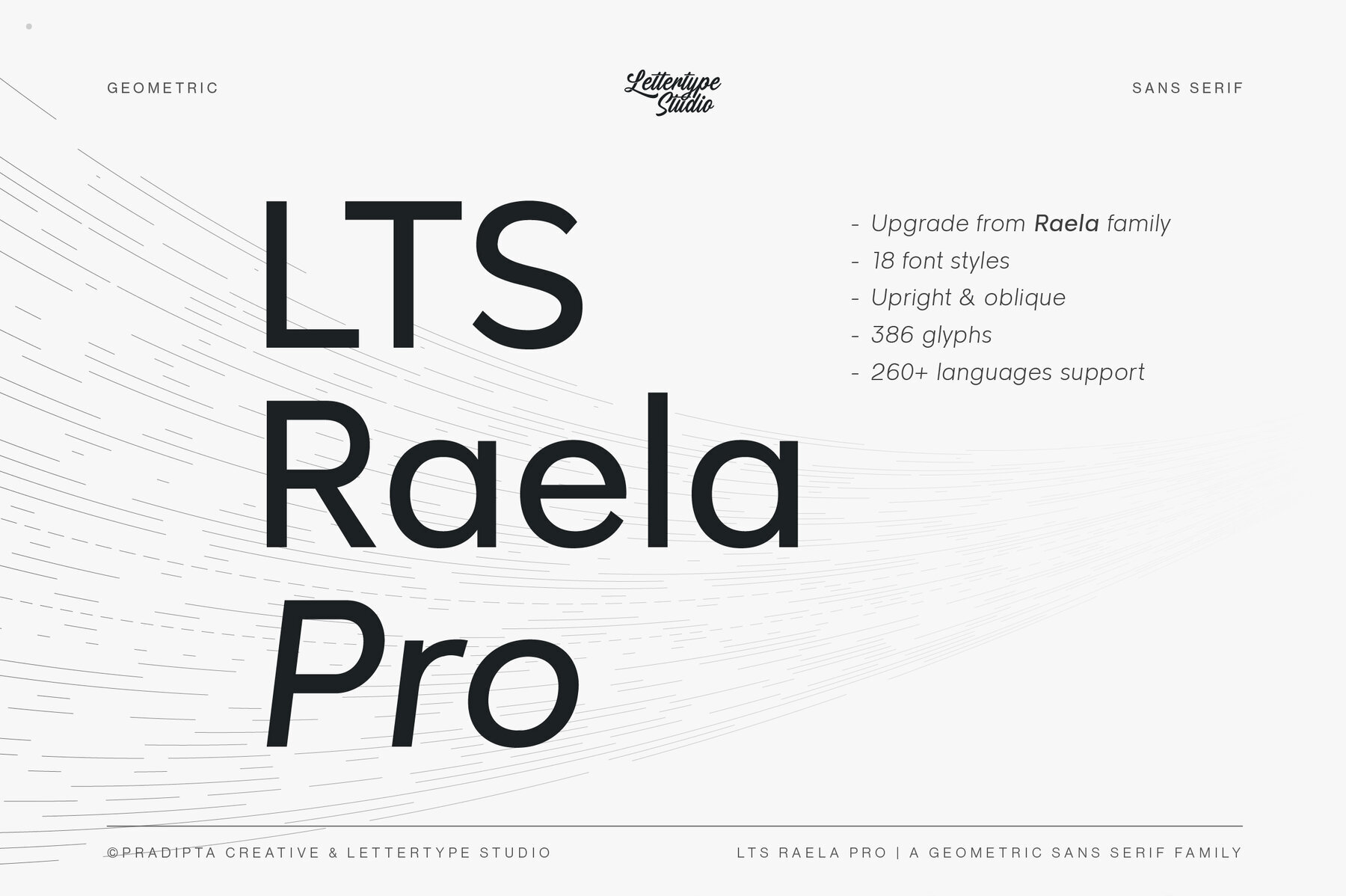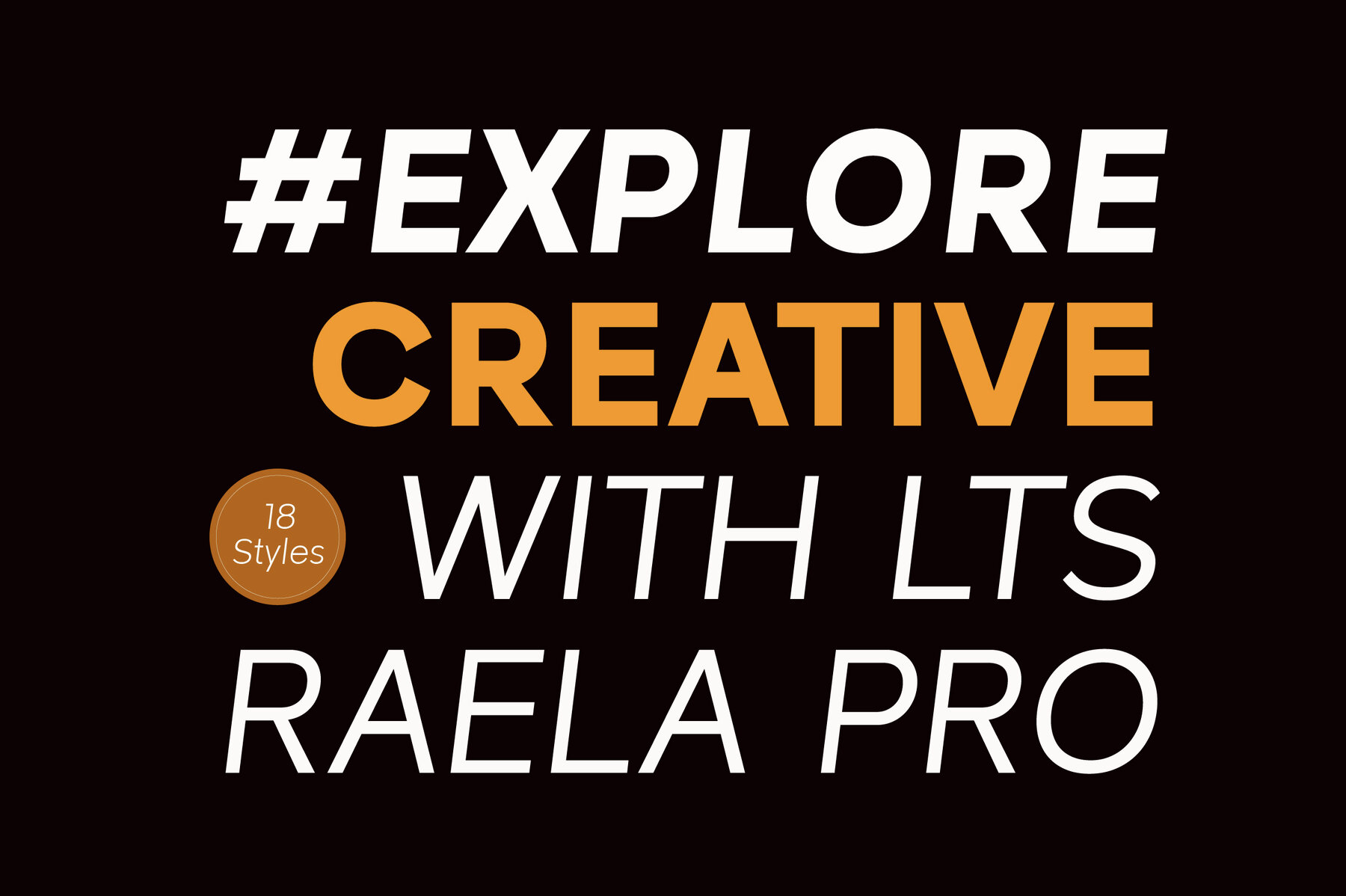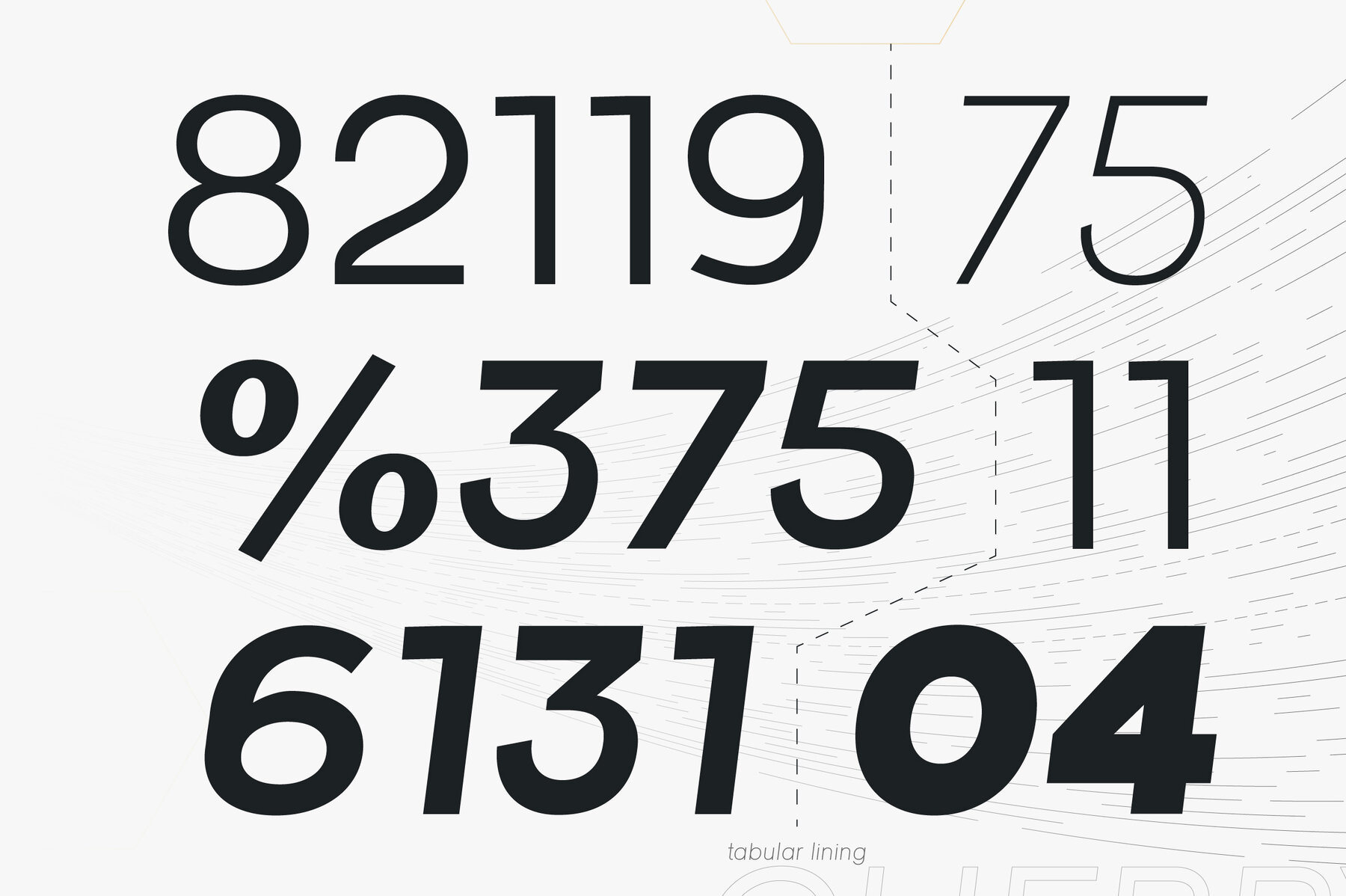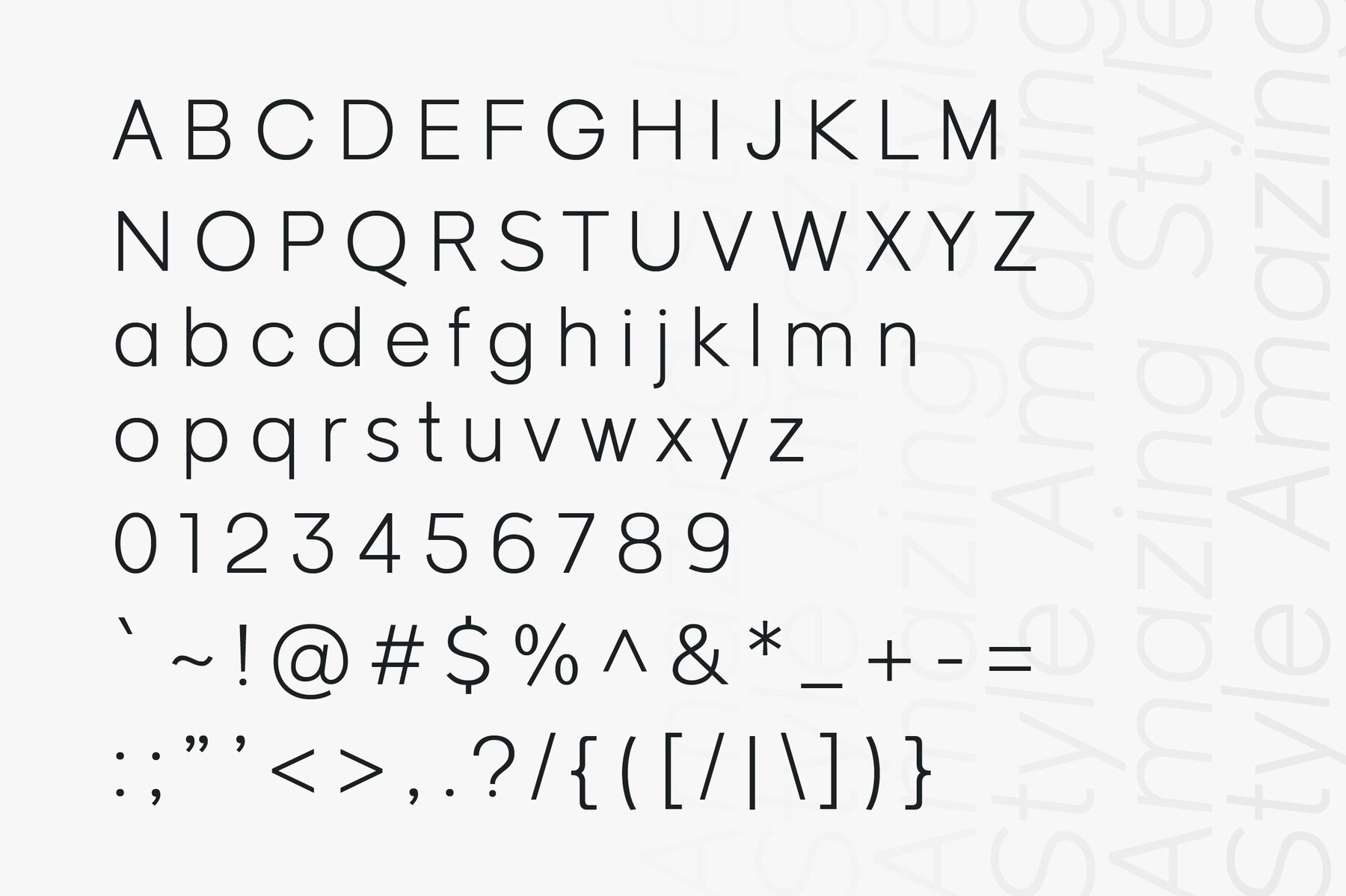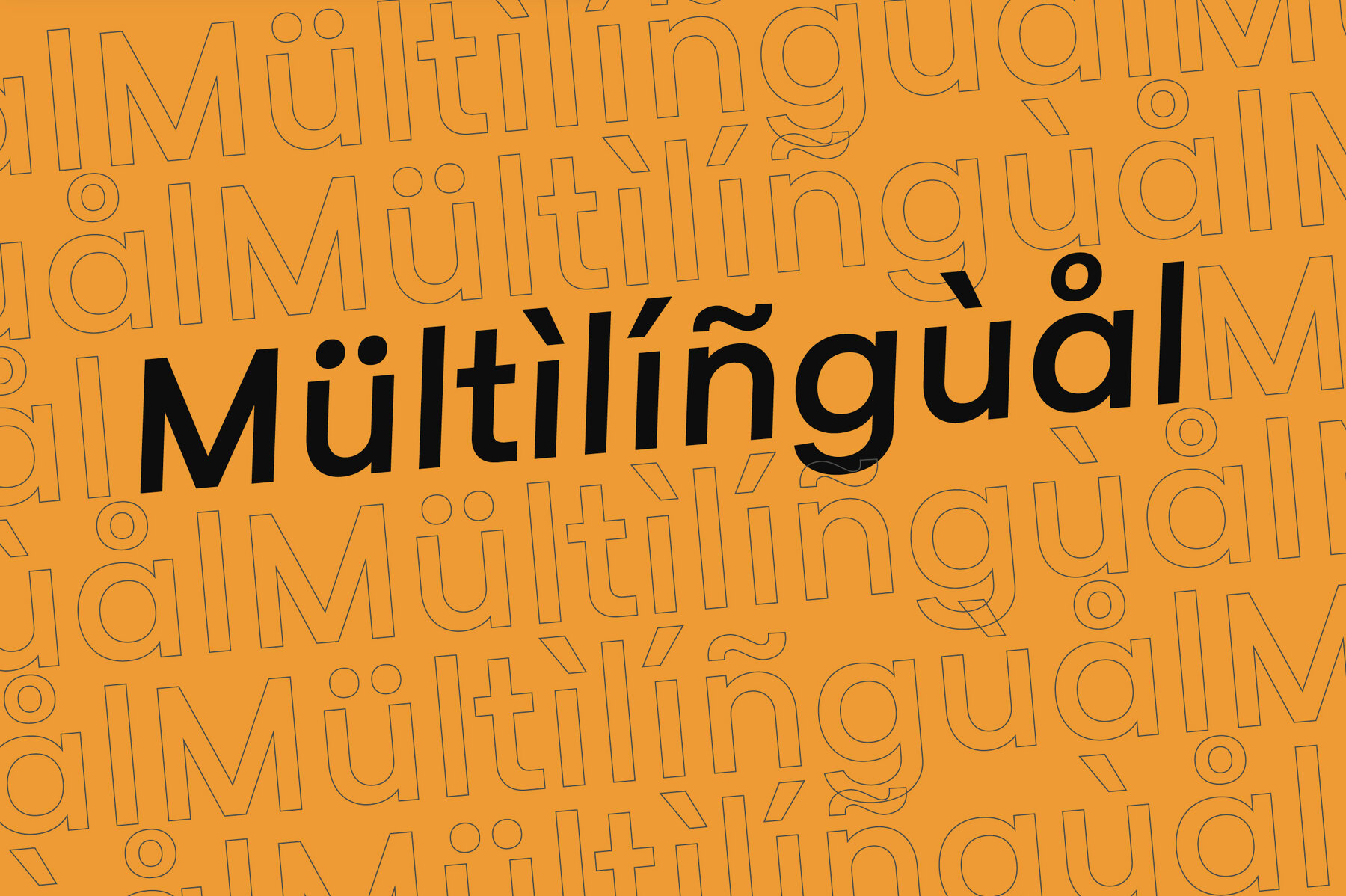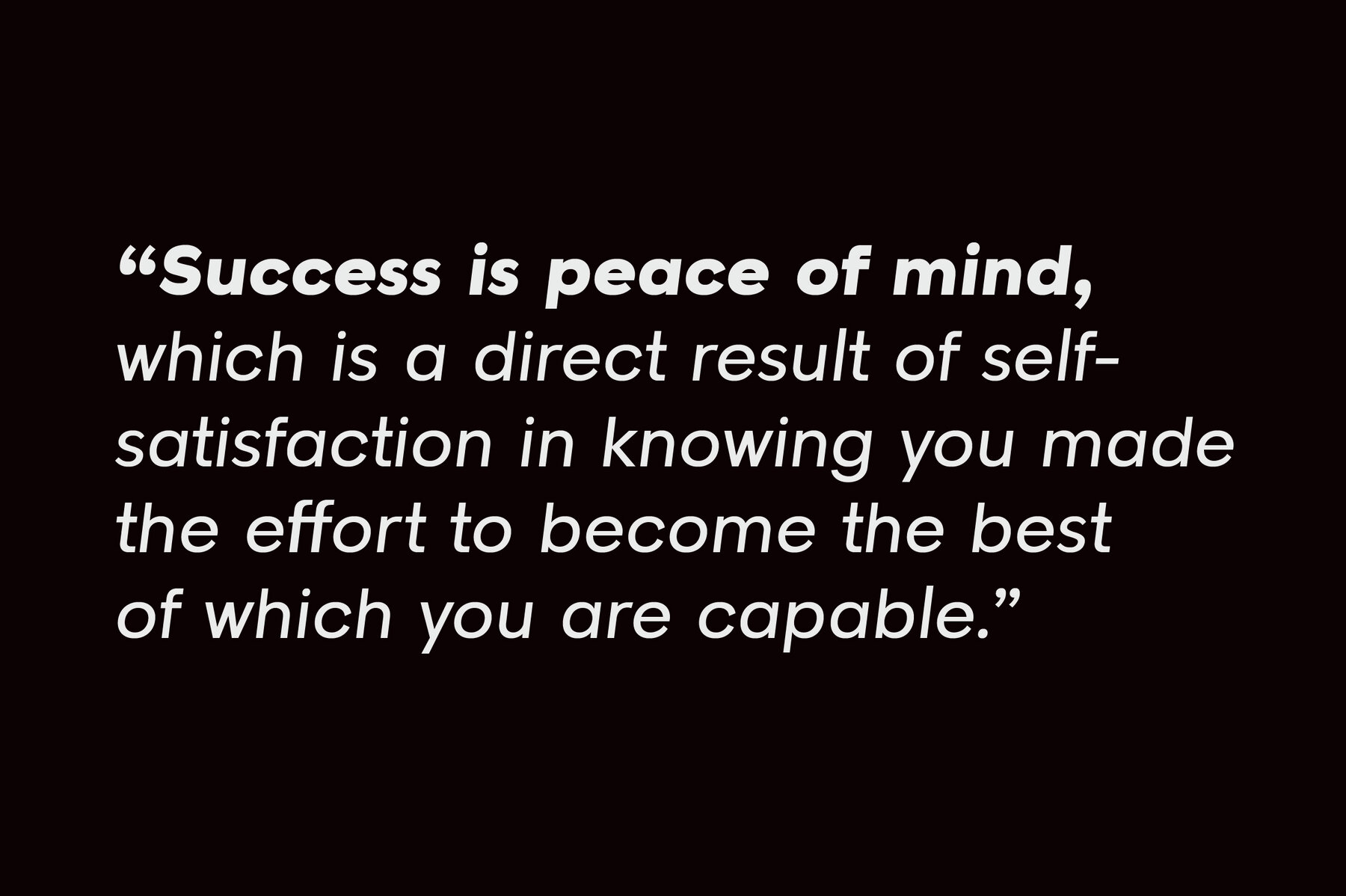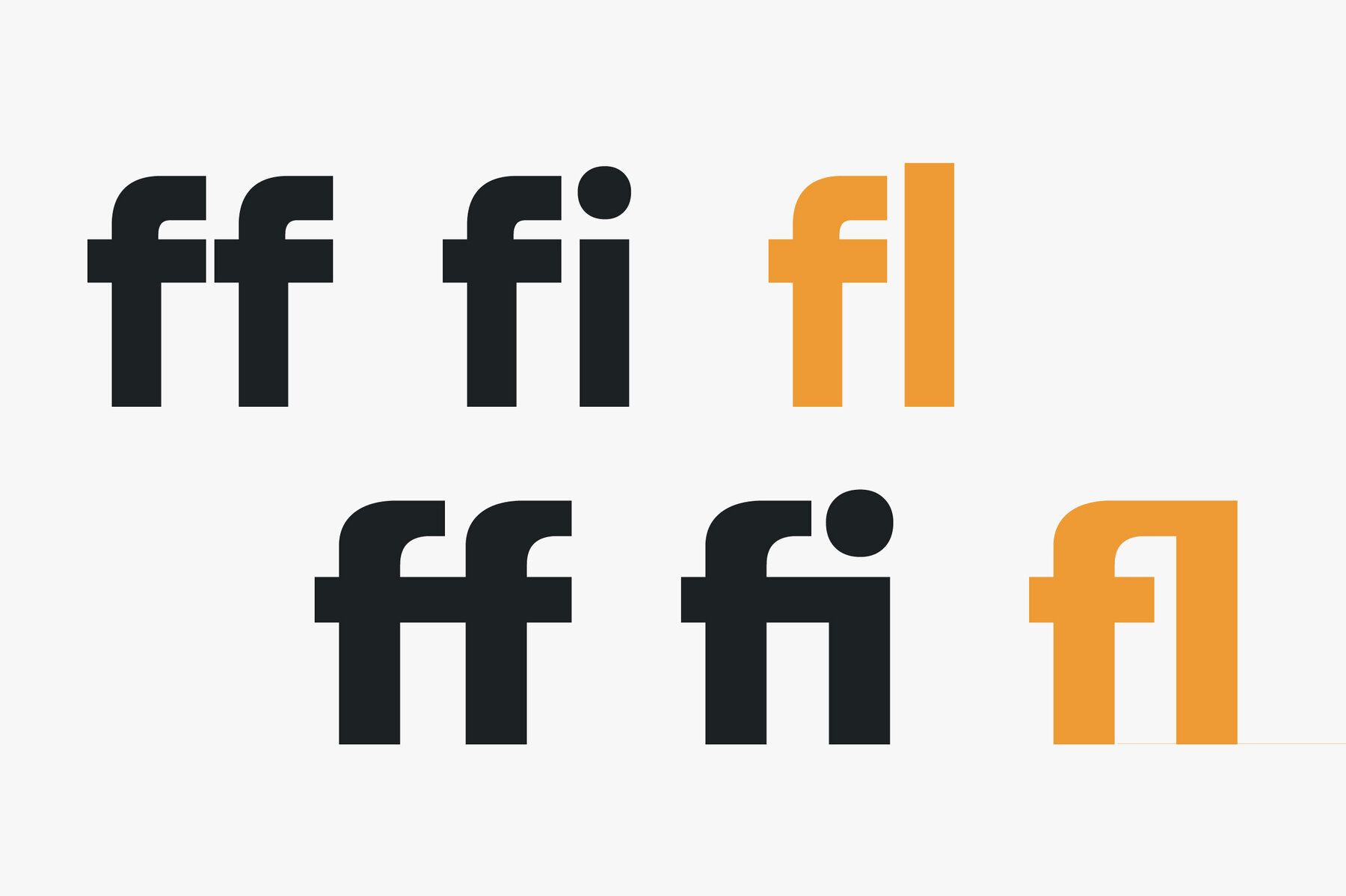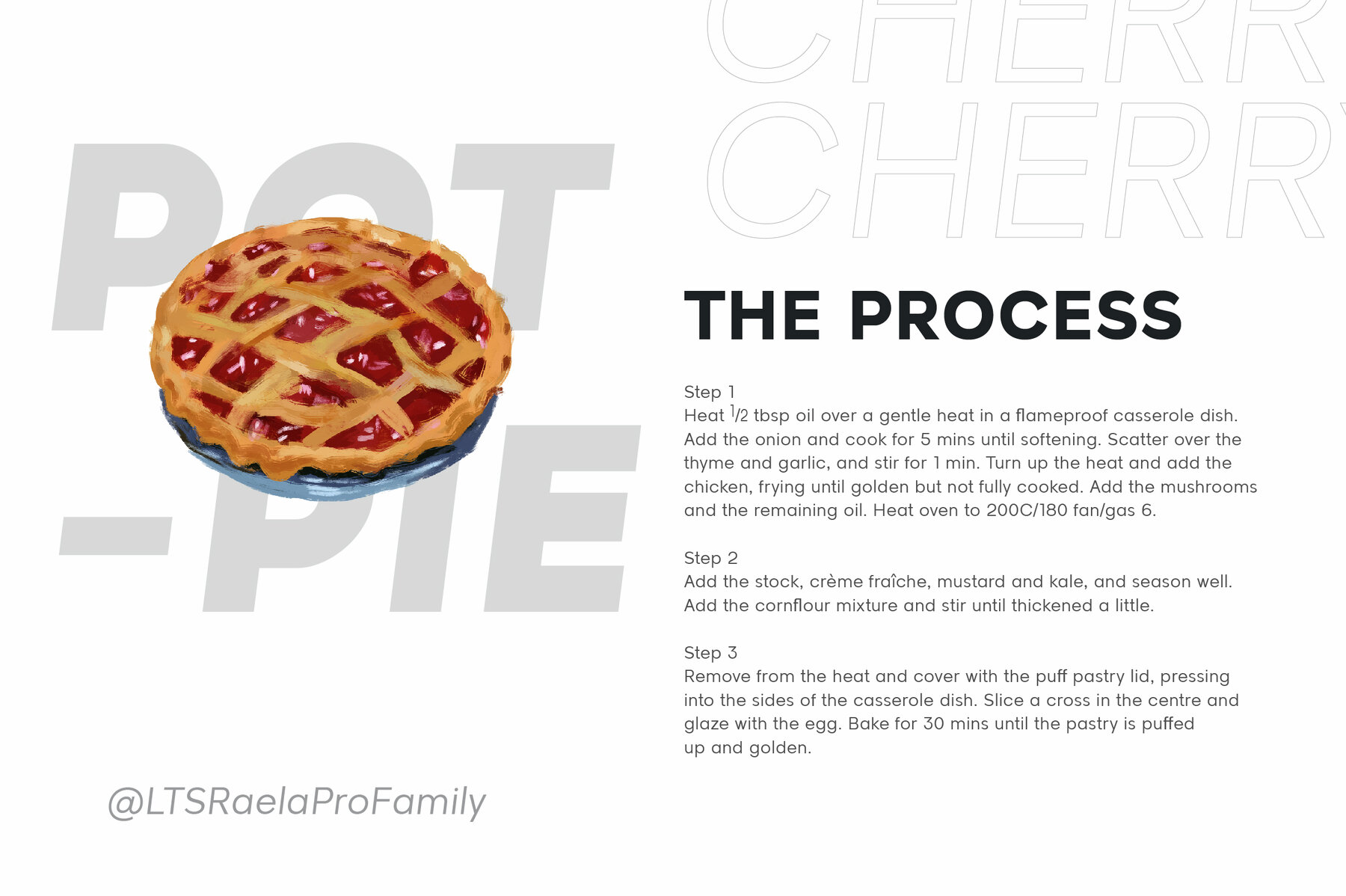
Raela Pro Font
Raela Pro is a geometric sans serif that effortlessly marries simplicity with a bold personality. Designed with precision, it features proportional widths, flat apexes, closed apertures, and straight-cut stroke ends to ensure readability and contemporary charm. With its 18 weights from Thin to Heavy, Raela offers flexibility in design projects. OpenType features such as Stylistic Alternates, figure variations, and extensive Latin language support make it suitable for diverse applications. Features: Designed for versatility, Raela shines in branding, web design, editorial layouts, and more. It delivers clean, modern aesthetics, ideal for sleek and impactful creative projects. Raela offers the precision and readability necessary to keep designs fresh and relevant.Raela Pro: A Bold and Versatile Geometric Sans Serif